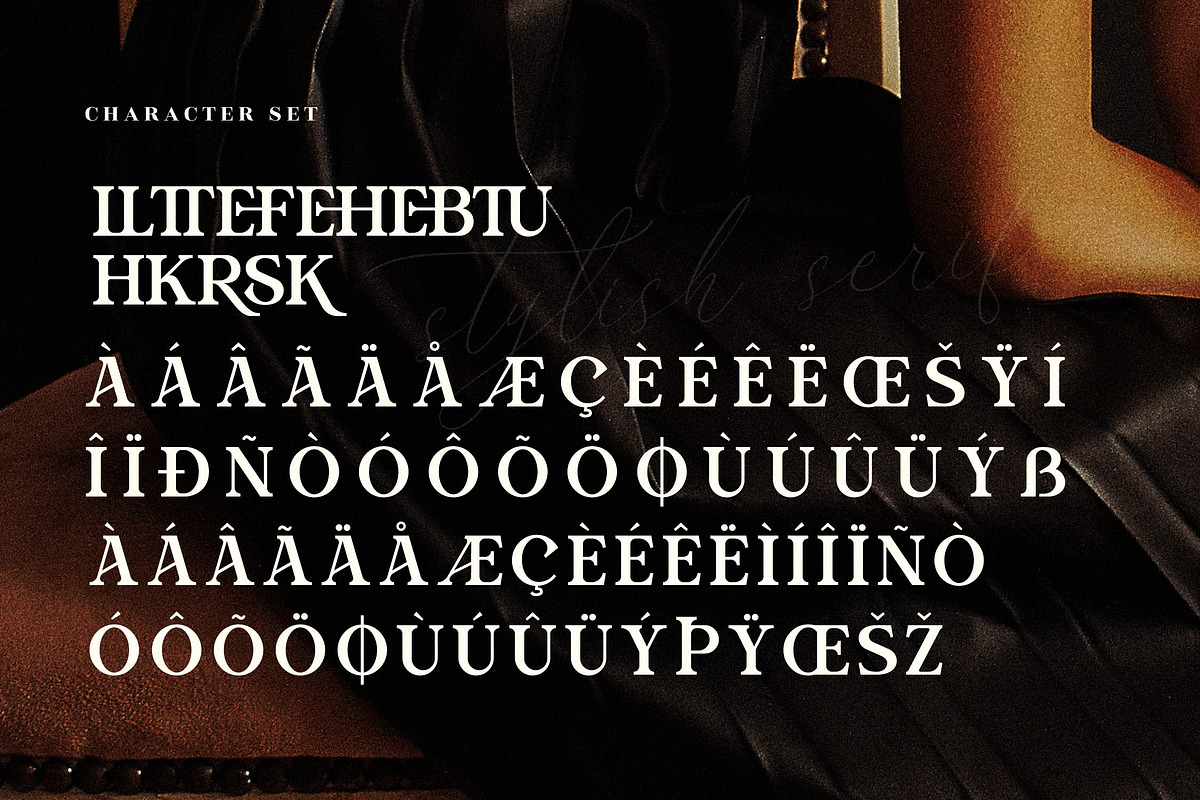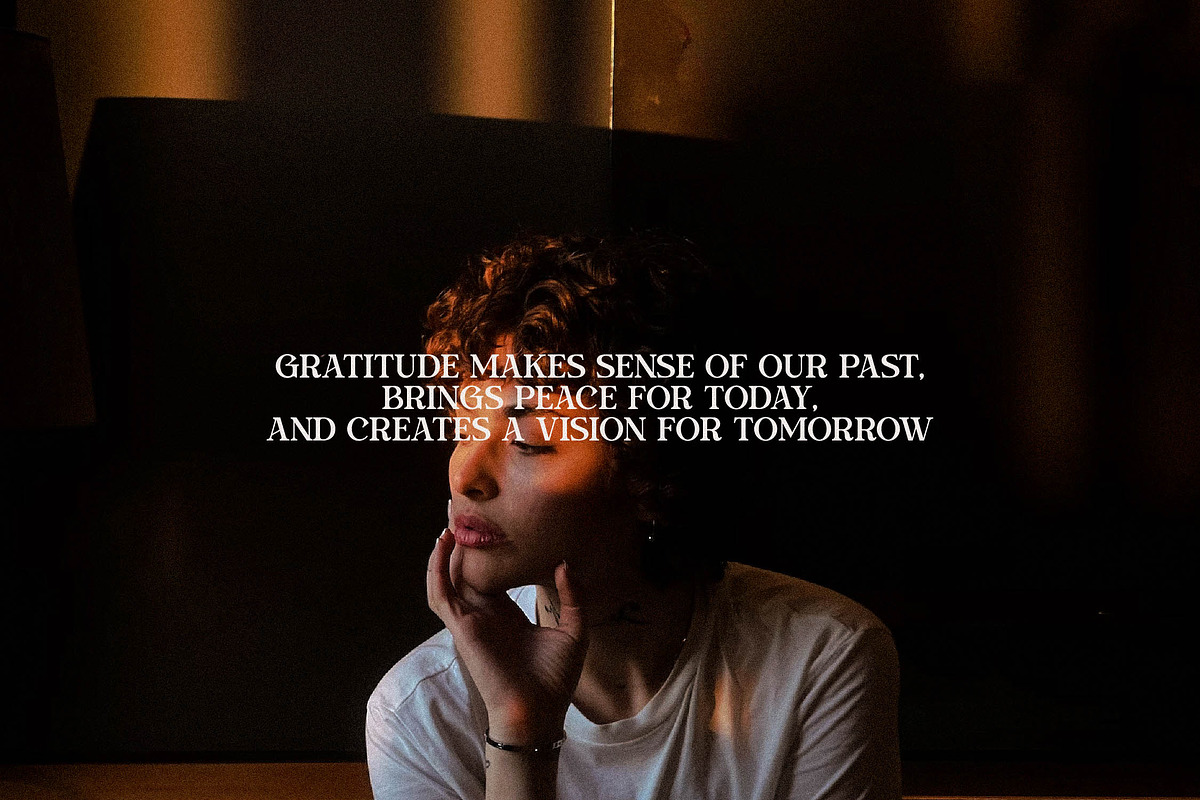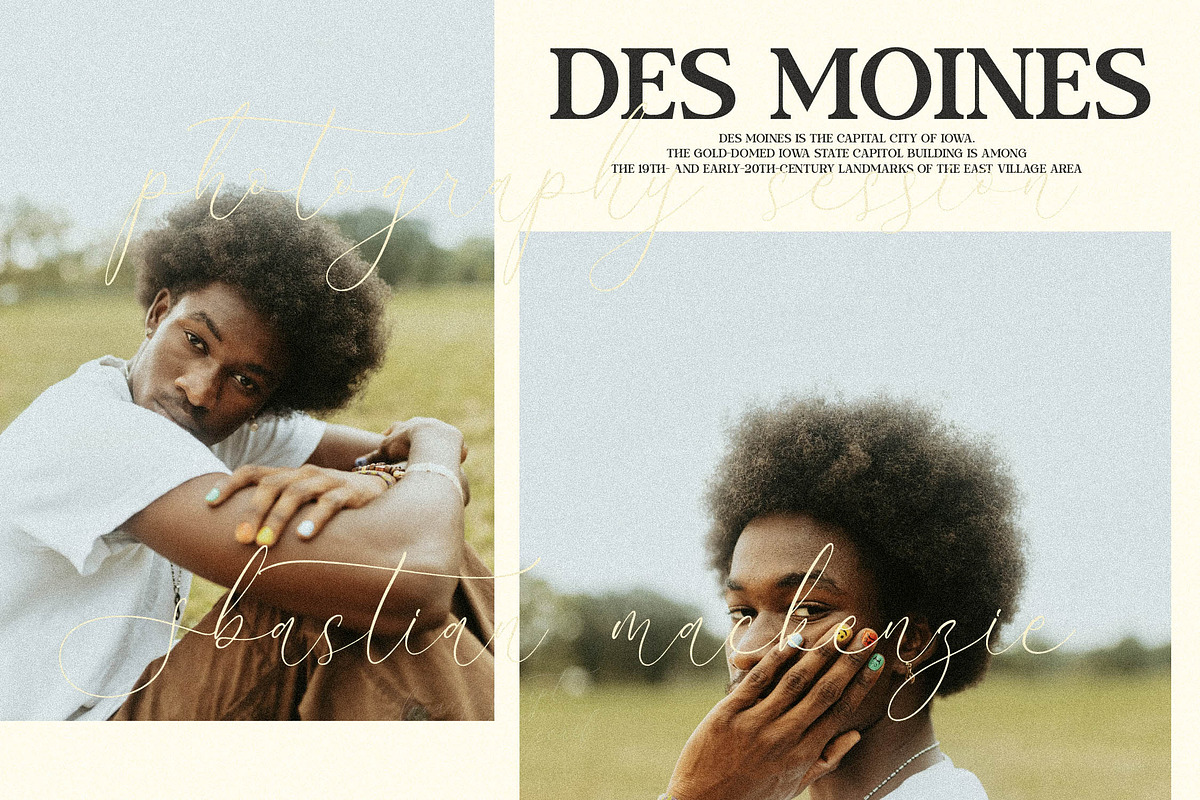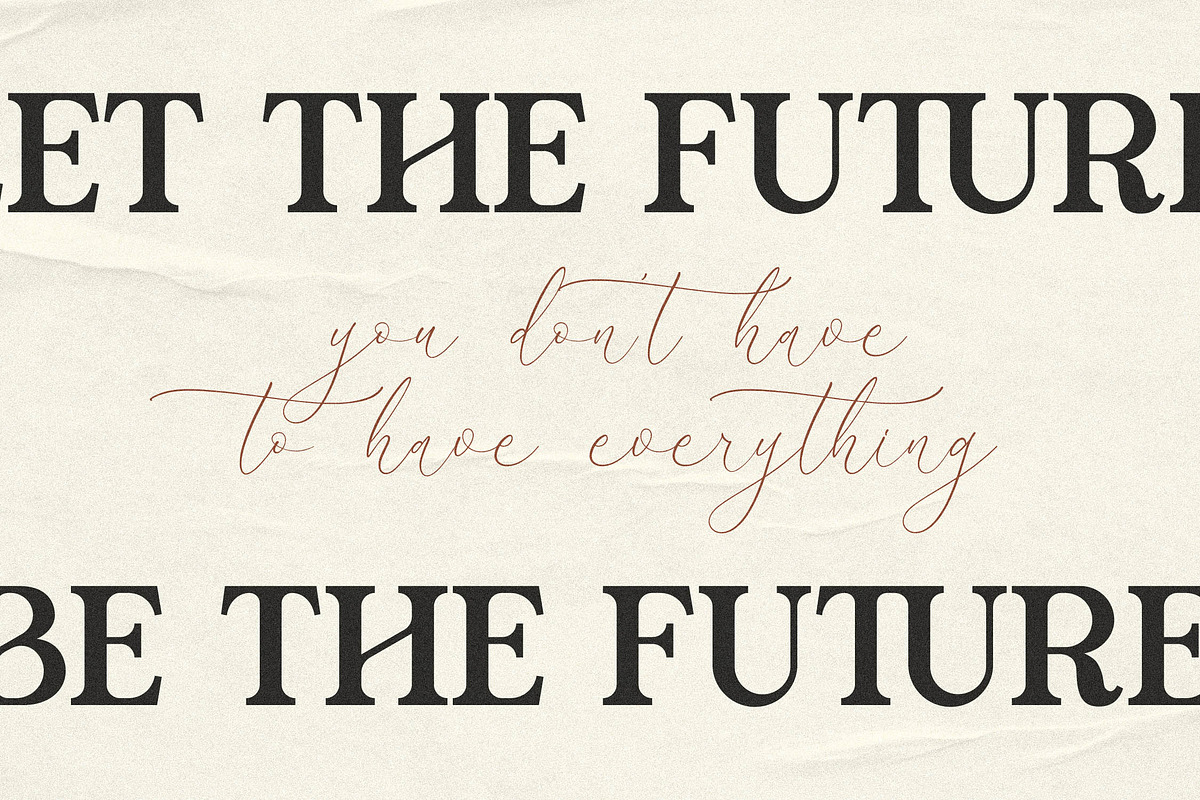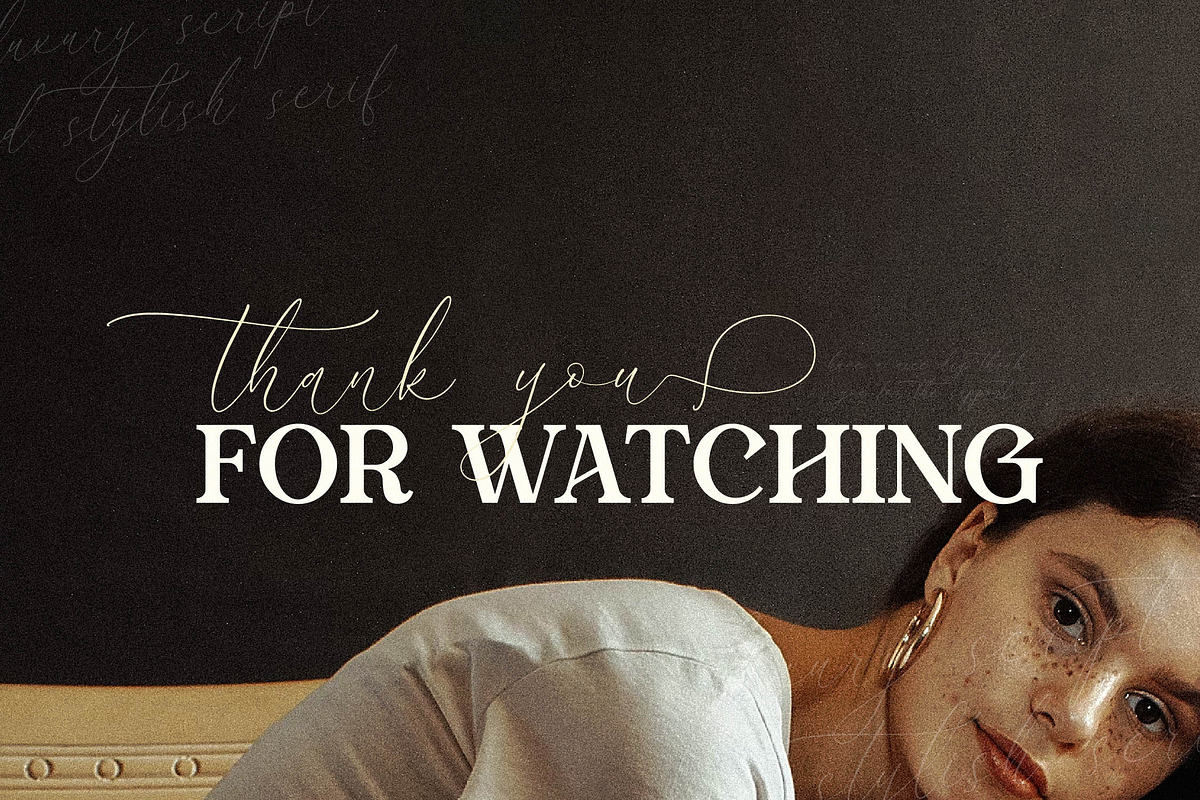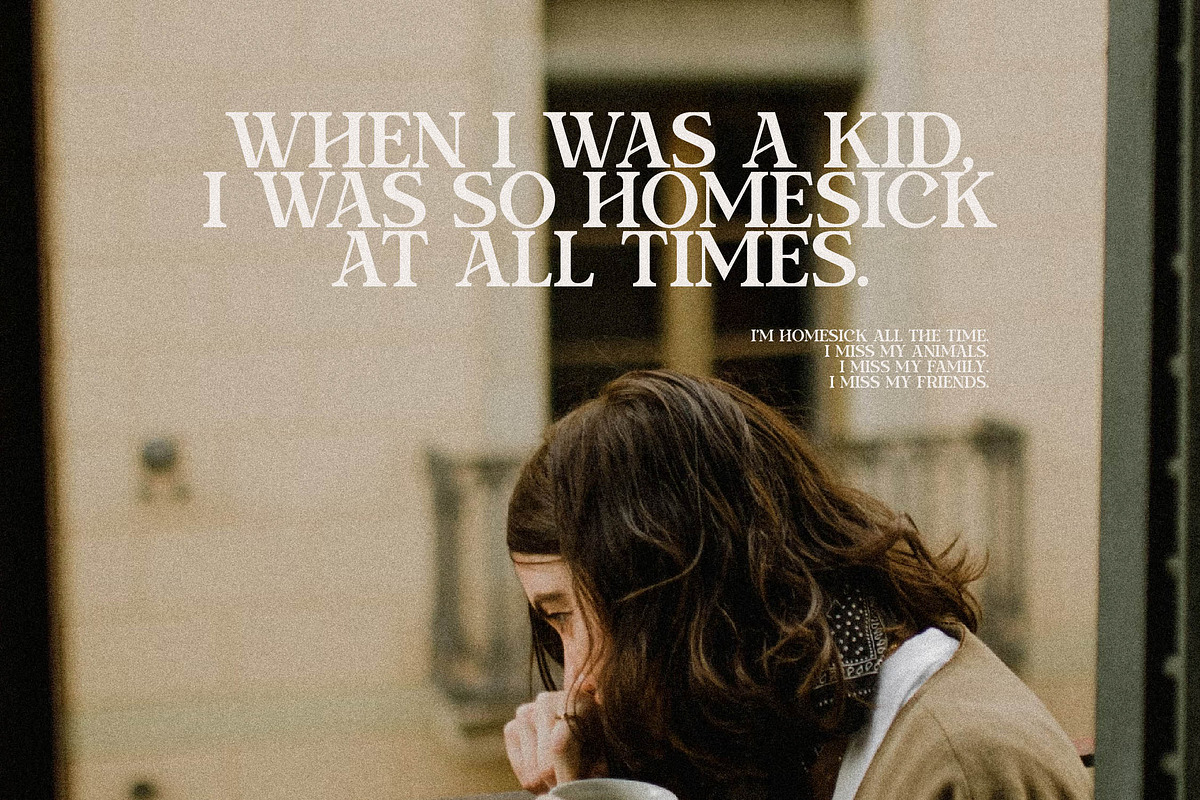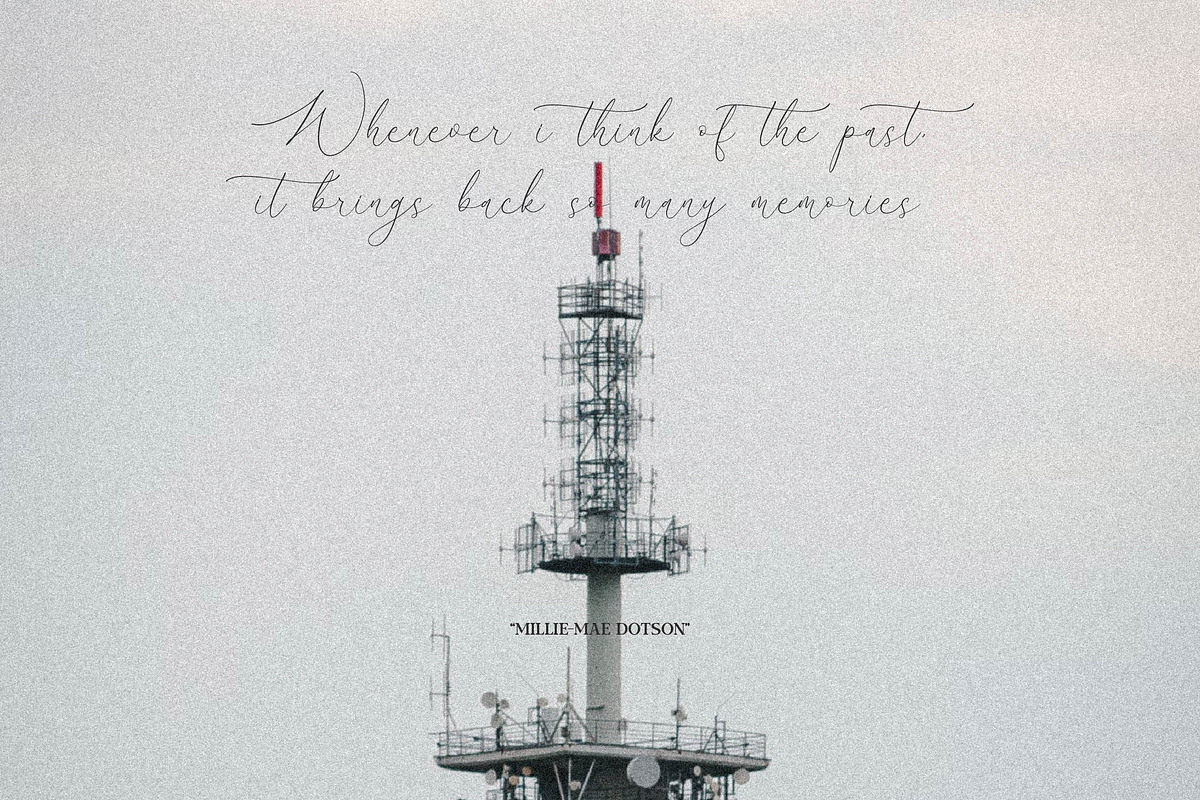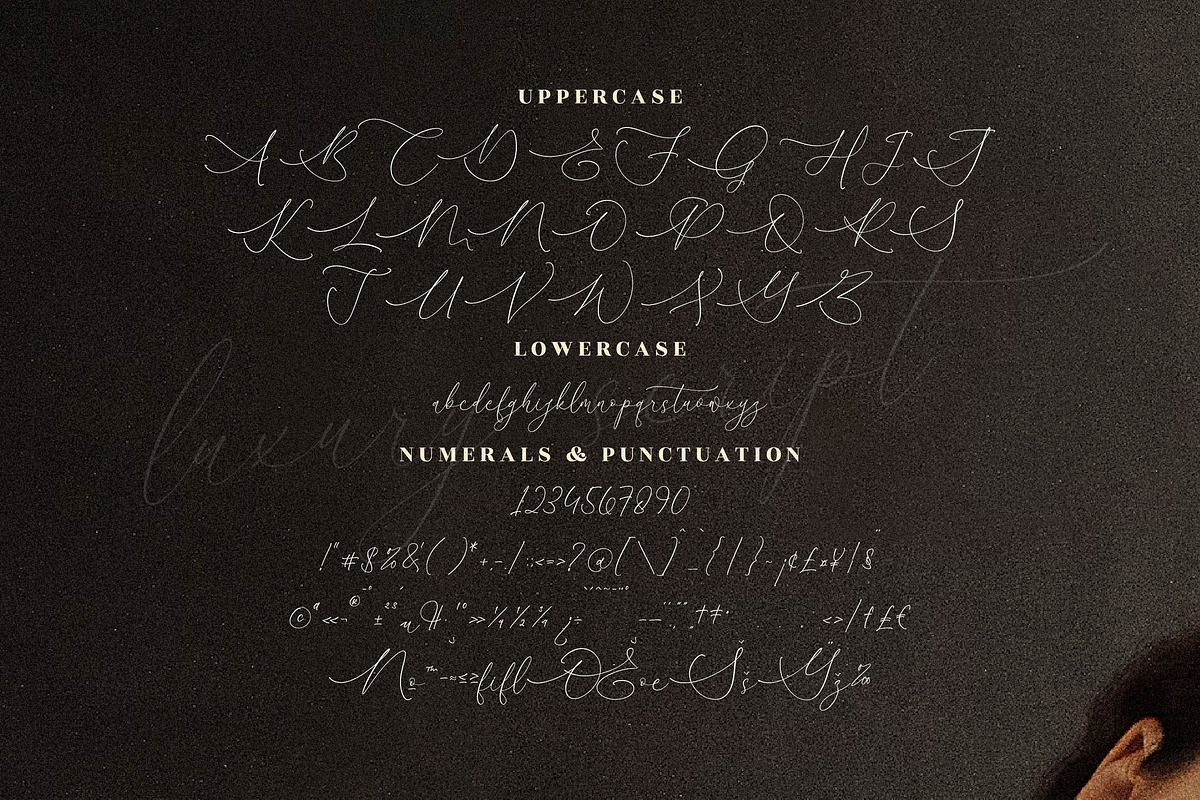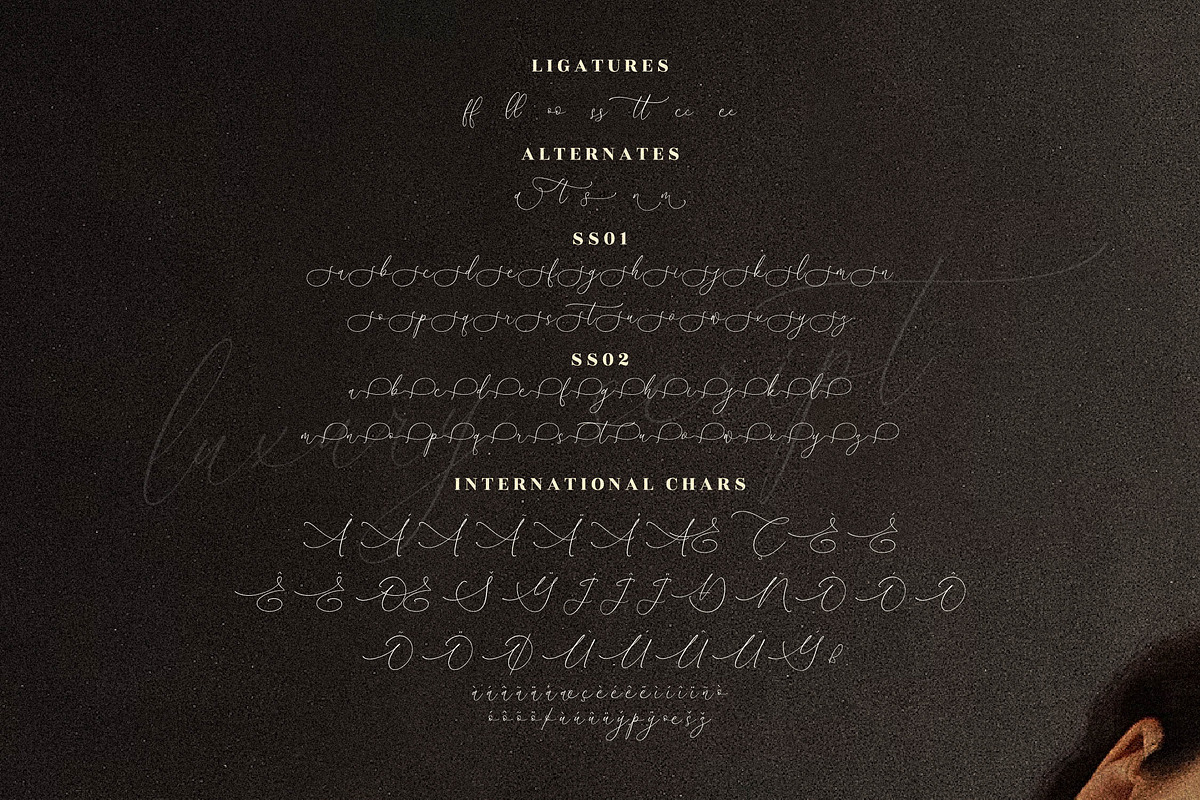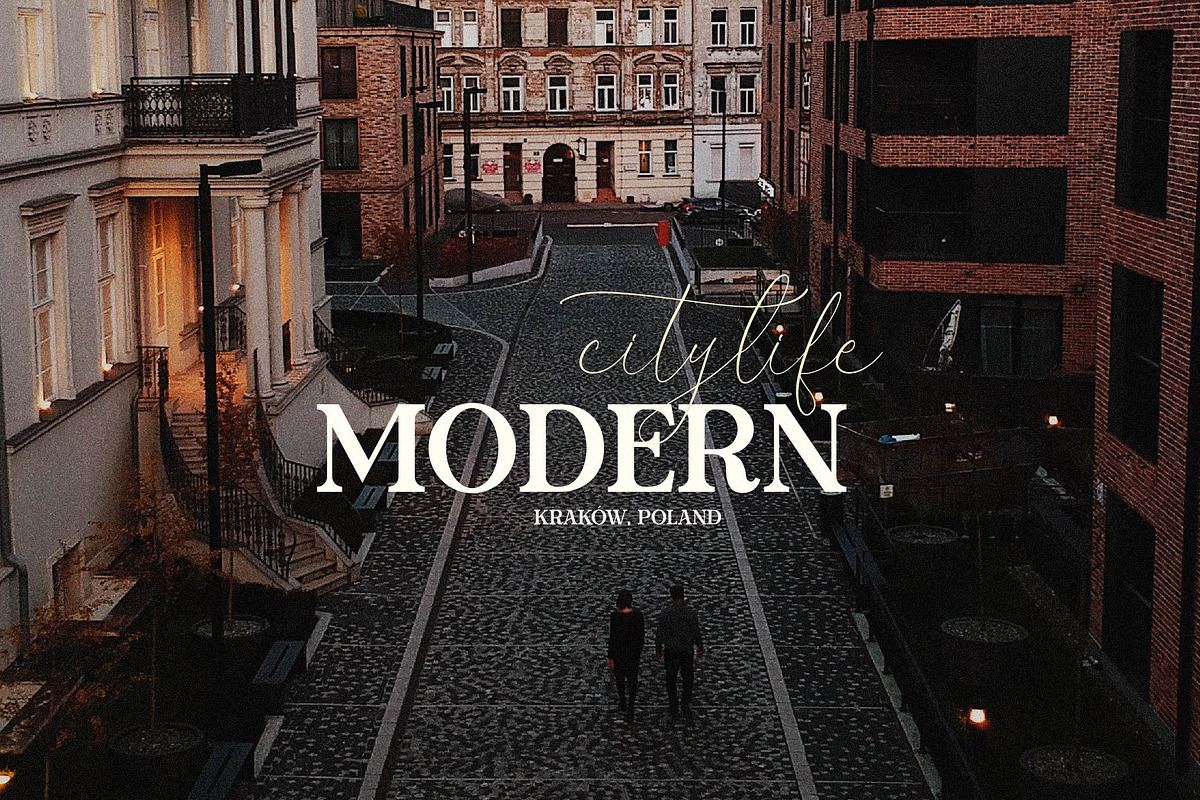
Clements Morgle Font Duo
Proudly present Clements Morgle Font Duo , created by Storytype, A serif and script typeface that has own unique style & modern look. This typeface is perfect for an elegant & luxury logo, book or movie title design, fashion brand, magazine, clothes, lettering, quotes, and so much more.